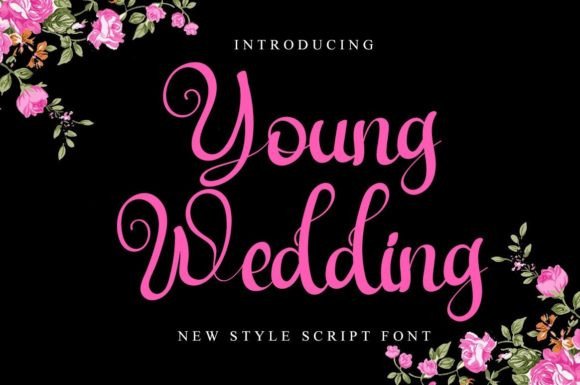
Dive into the world of Young Wedding Font, a captivating script that will transform your digital creations into works of art. With its charming personality and delicate strokes, Young Wedding Font adds a touch of elegance to any website header, making it the perfect choice for businesses and individuals alike.
Crafted by the renowned Eddygoodboy, Young Wedding Font exudes a sense of freshness and joy, ready to uplift your designs. Its clean and stylish appearance makes it an ideal choice for both formal and informal projects, offering endless possibilities.
Whether you're creating stunning invitations, designing eye-catching logos, or adding a touch of sophistication to your website, Young Wedding Font has the versatility to meet your needs. Its graceful curves and delicate details will add a touch of charm and personality to your work, leaving a lasting impression on your audience.
By incorporating Young Wedding Font into your design arsenal, you'll not only enhance the aesthetic appeal of your projects but also simplify your design process. Its user-friendly nature allows for seamless integration, empowering you to create captivating designs with ease.
Don't settle for ordinary fonts; embrace the extraordinary with Young Wedding Font. Its enchanting charm and versatility will elevate your designs to new heights, leaving your audience captivated and eager for more.